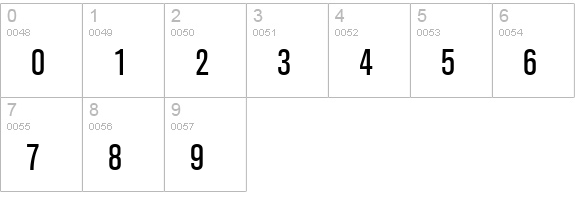
Ancona-Narrow-Regular Font Details
Ancona-Narrow-Regular is the standard, neutral, condensed-width variant in the Ancona typeface family \xE2\x80\x94 well suited to general body text, paragraphs, and standard typographic work.
Ancona Narrow Regular is a sleek and modern font that exudes elegance and sophistication. With its clean lines and subtle curves, this typeface is perfect for a wide range of design projects, from branding to editorial design. The Ancona Narrow Regular font strikes the perfect balance between professionalism and creativity, making it a versatile choice for both print and digital applications. The best part? Ancona Narrow Regular is available for free download at FontsMarket.com. This means you can access this high-quality font without spending a dime, making it an excellent option for designers on a budget or anyone looking to add a touch of style to their projects without breaking the bank. Don't miss out on the opportunity to enhance your designs with the timeless elegance of Ancona Narrow Regular – download it for free today!